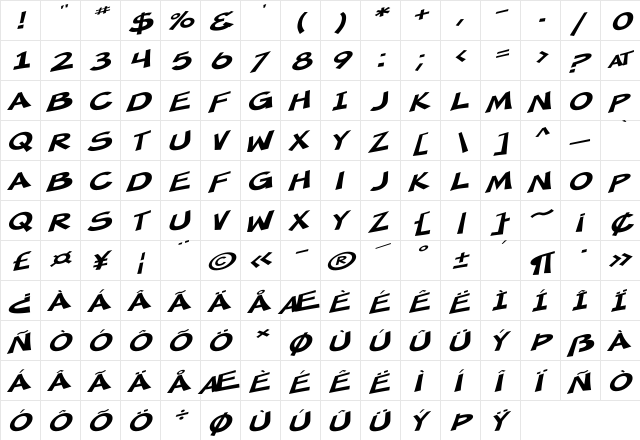
SF Minced Meat Extended Oblique
Design Context for SF Minced Meat Extended Typeface
SF Minced Meat Extended is a composed and adaptable typeface that performs quietly and consistently across a wide range of design contexts. Its italic angle brings a sense of urgency and motion to the letterforms.